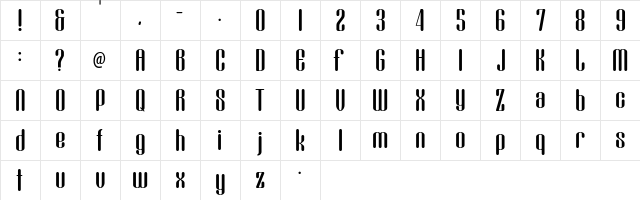
Popstick-Demo Regular
| Designer | Kadek Mahardika |
Design Context for Popstick-Demo Typeface
Popstick-Demo is a composed and adaptable typeface that performs quietly and consistently across a wide range of design contexts.